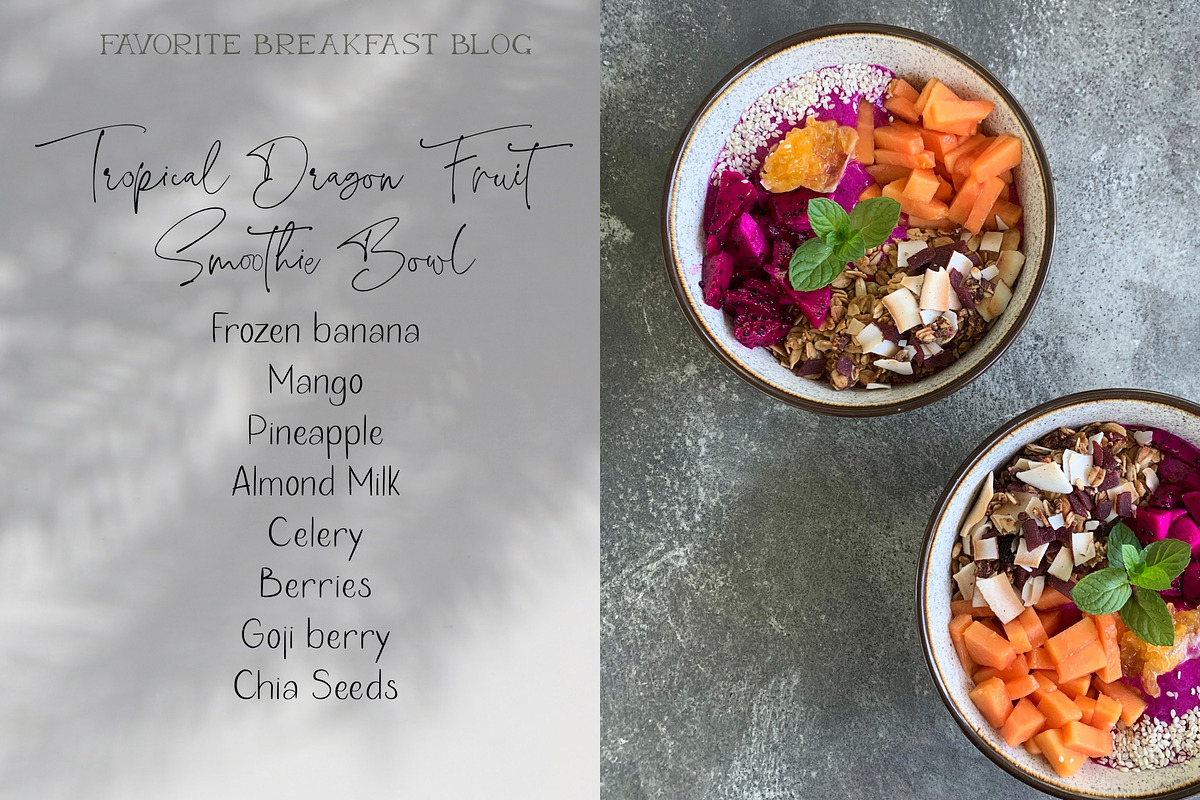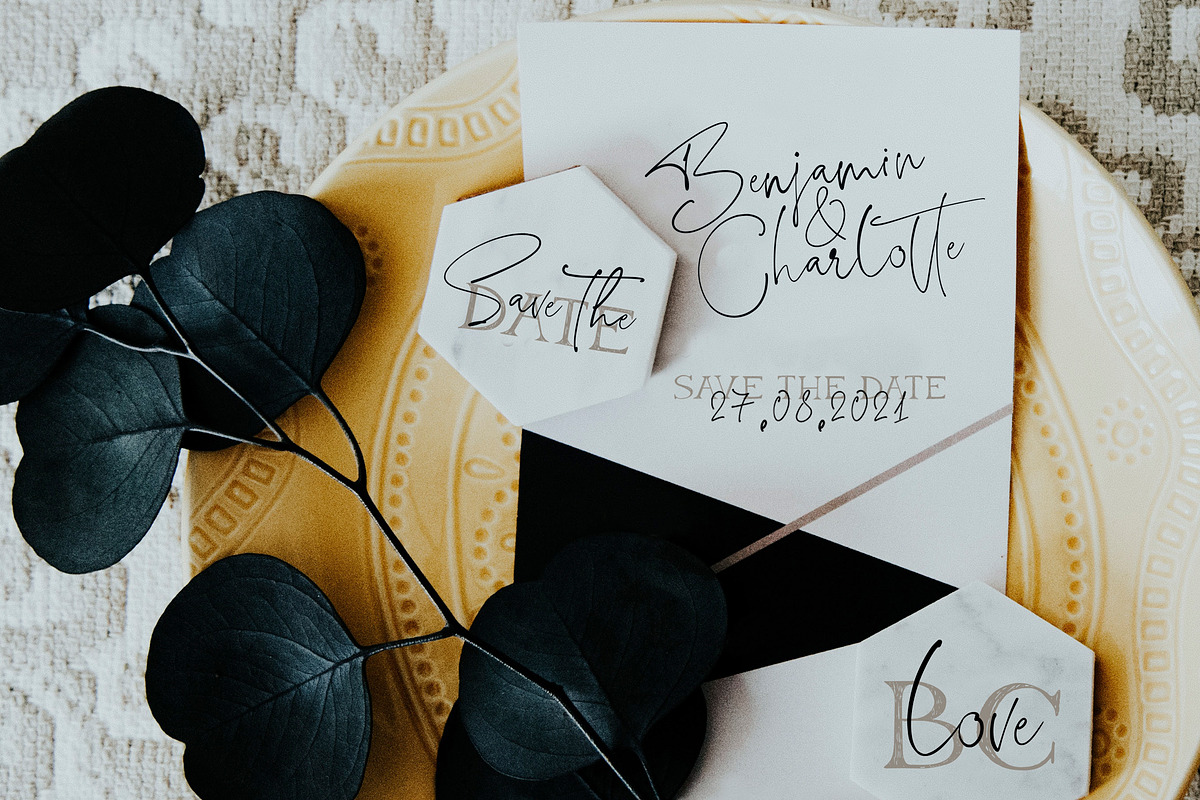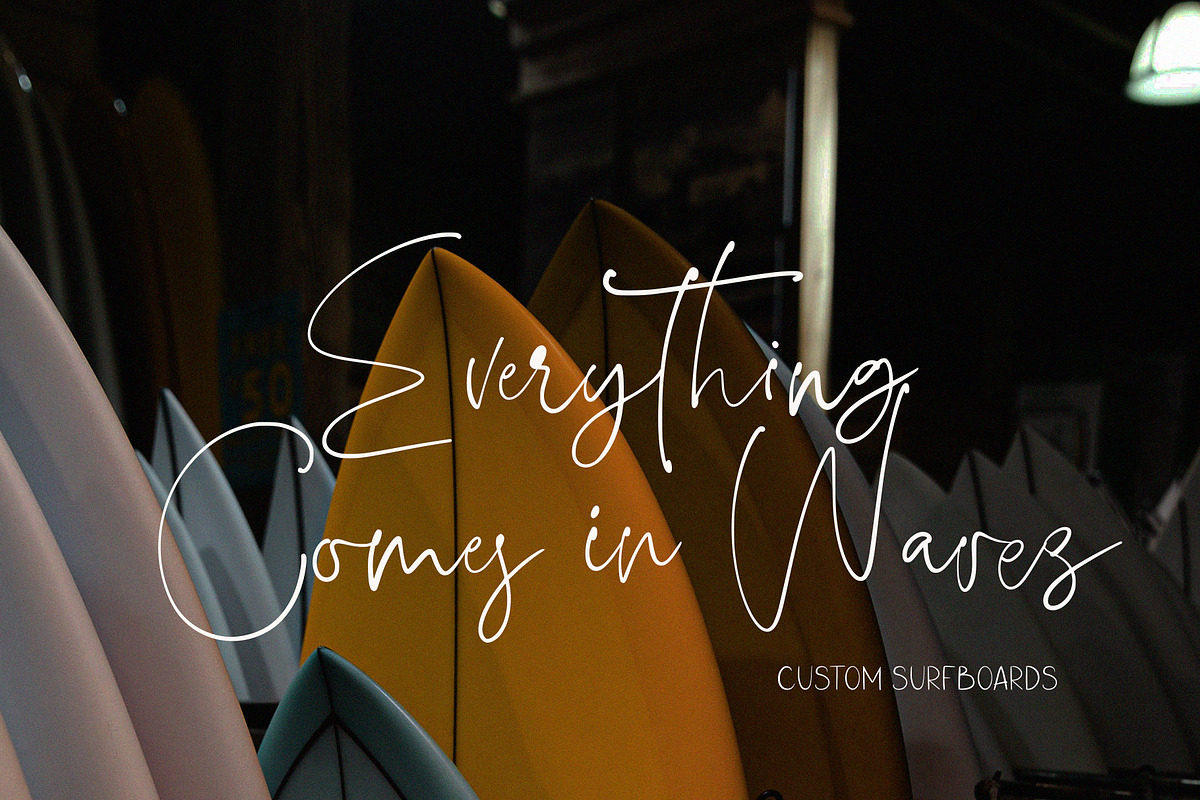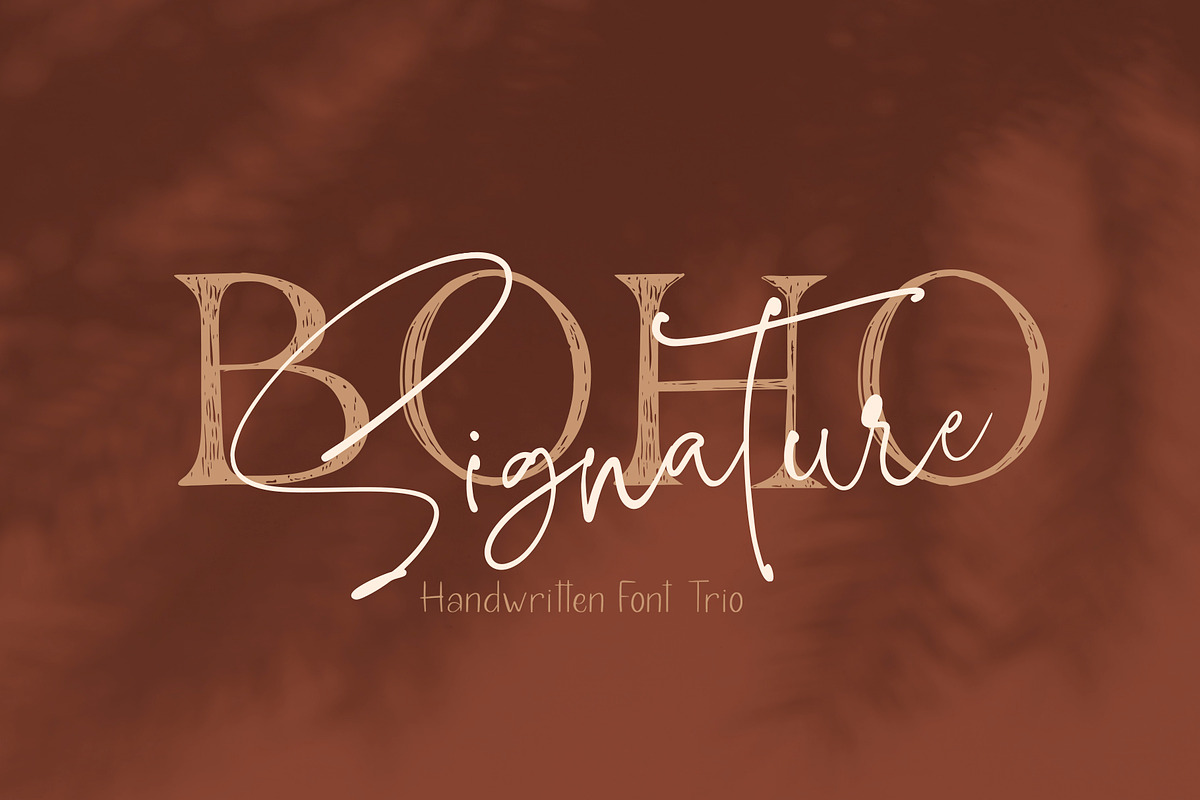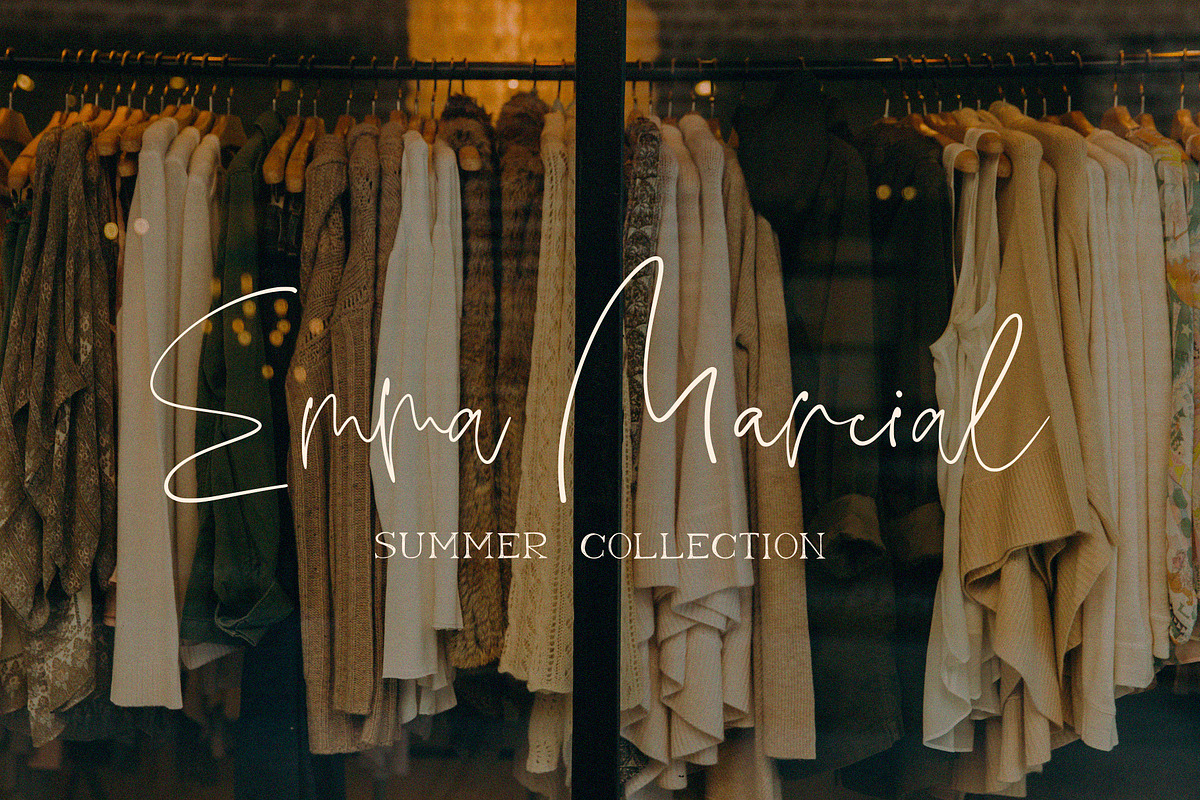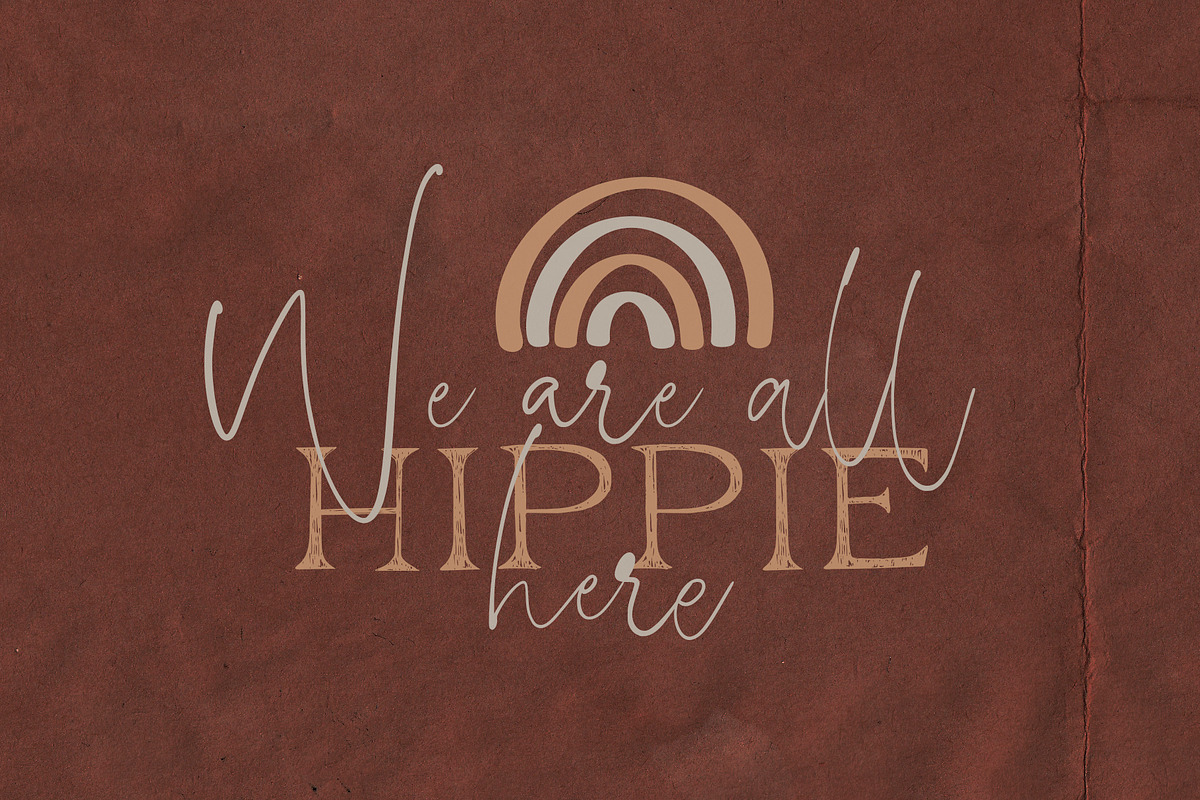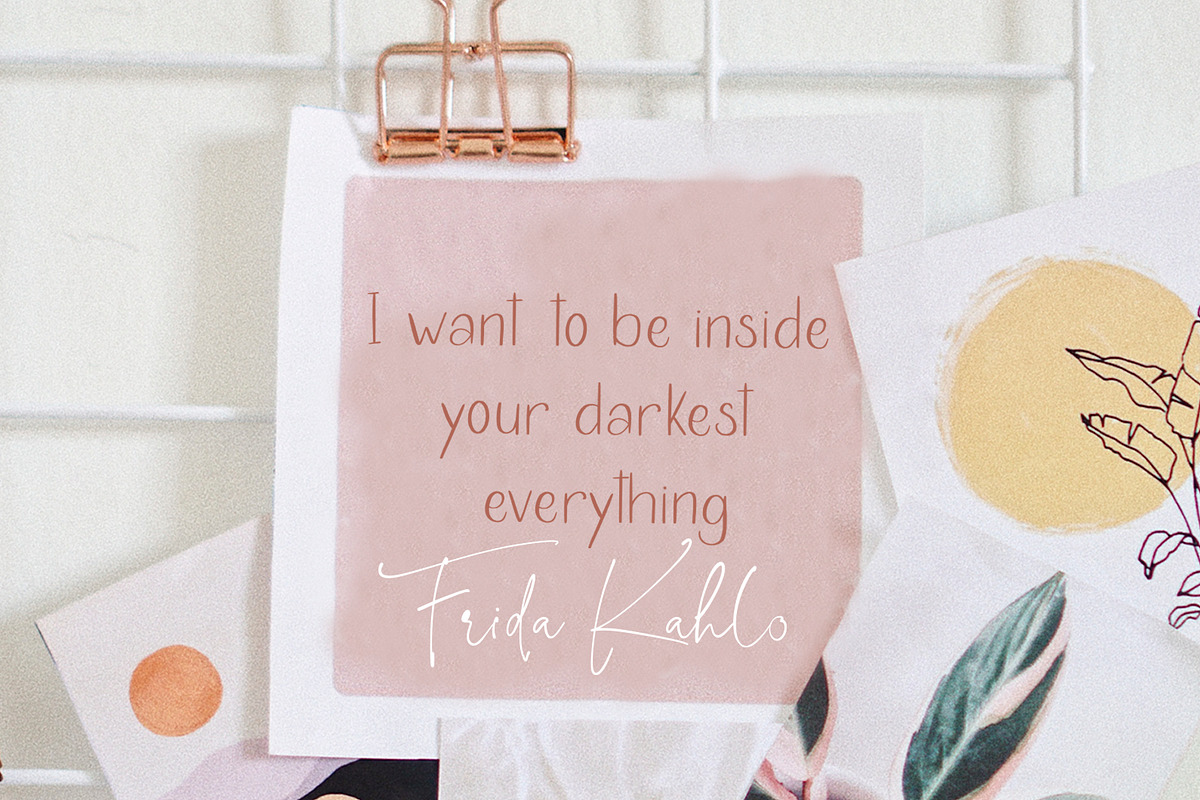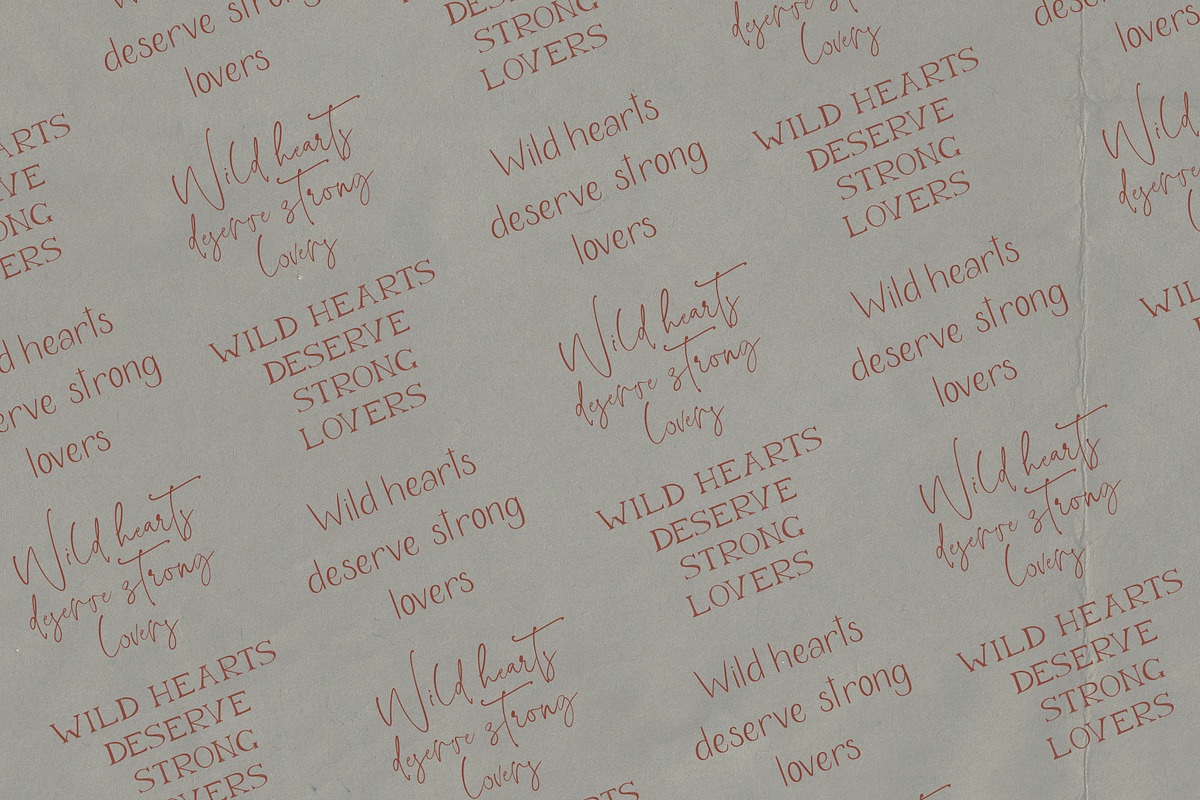
Boho Signature Handwritten Font Trio
Boho Signature Handwritten Font Trio - it's a modern textured font trio
Boho Signature Script.otf - standart and alternate uppercase, lowercase, numbers, punctuation and ligatures
Boho Signature Thin.otf - standart uppercase, lowercase, numbers, punctuation
Boho Signature Serif.otf - all caps font.
Boho Signature Handwritten Font Trio by CallMeStasia fits naturally into Branding, posters, packaging, typography.